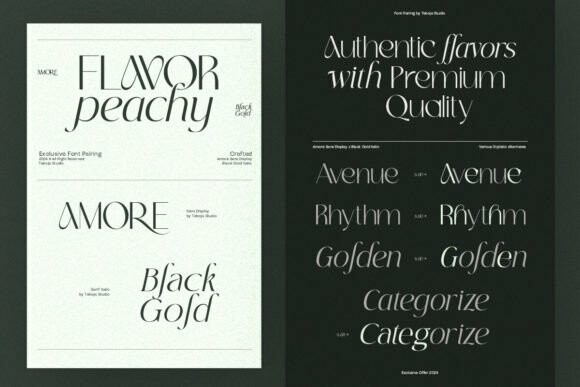
Flavor Peachy Font
Designer: Taboja Studio
Flavor Peachy Font is a unique combination that merges the modern simplicity of Amore sans serif with the classic elegance of Black Gold italic serif. This pairing creates a harmonious and visually appealing contrast, perfect for various design projects.
Flavor Peachy is ideal for designers who seek to achieve a blend of modern simplicity and classic elegance in their projects. This font combination offers harmony and visual appeal, ensuring designs are stylish and professional.